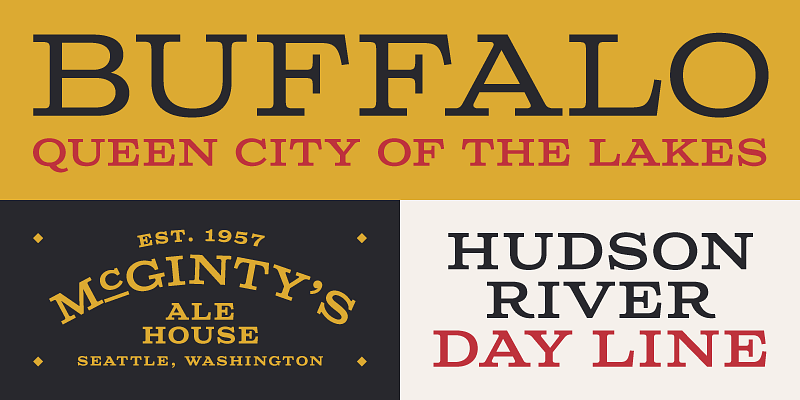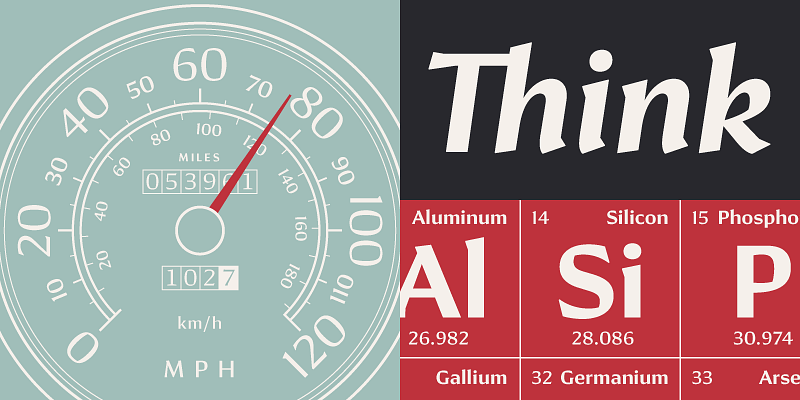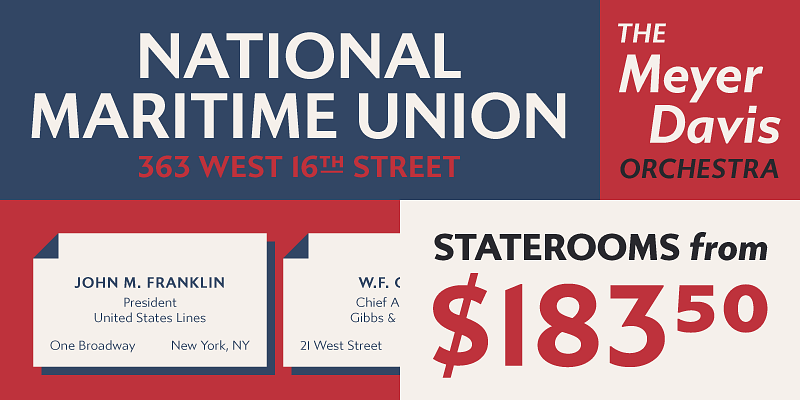
Columbia Titling is based on wide slab-serif wood type and industrial signage from the turn of the 20th century. Depending on its use it can easily play either old-fashioned or fresh and contemporary.
Conglomerate is a unique blend of sans and serif typographic traits resulting in a clean and versatile font family with large, open counters for legibility in text yet crisp details at display sizes.
Gibbs is inspired by the unique cast aluminum signs found on board the mid-century ocean liner SS United States, blending the industrial American vernacular lettering style and English humanist type.